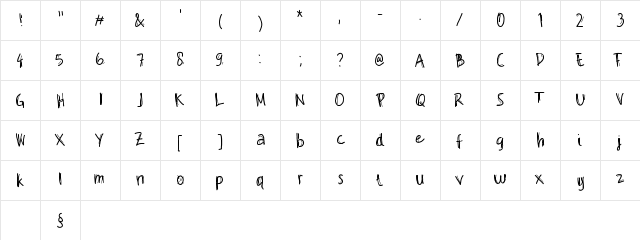
Double Thin is a composed and adaptable typeface that performs quietly and consistently across a wide range of design contexts. Its slender proportions lend an understated elegance to any composition.